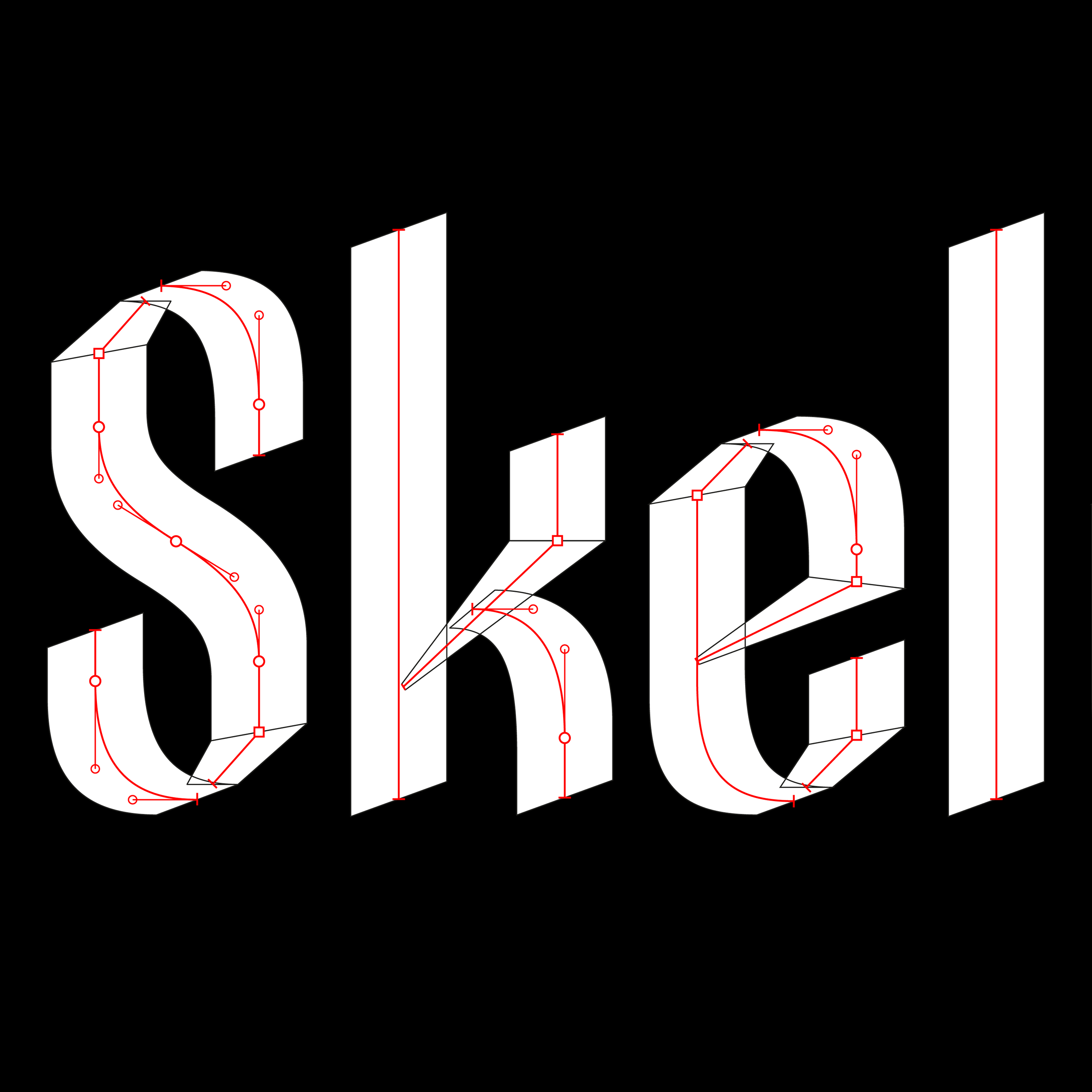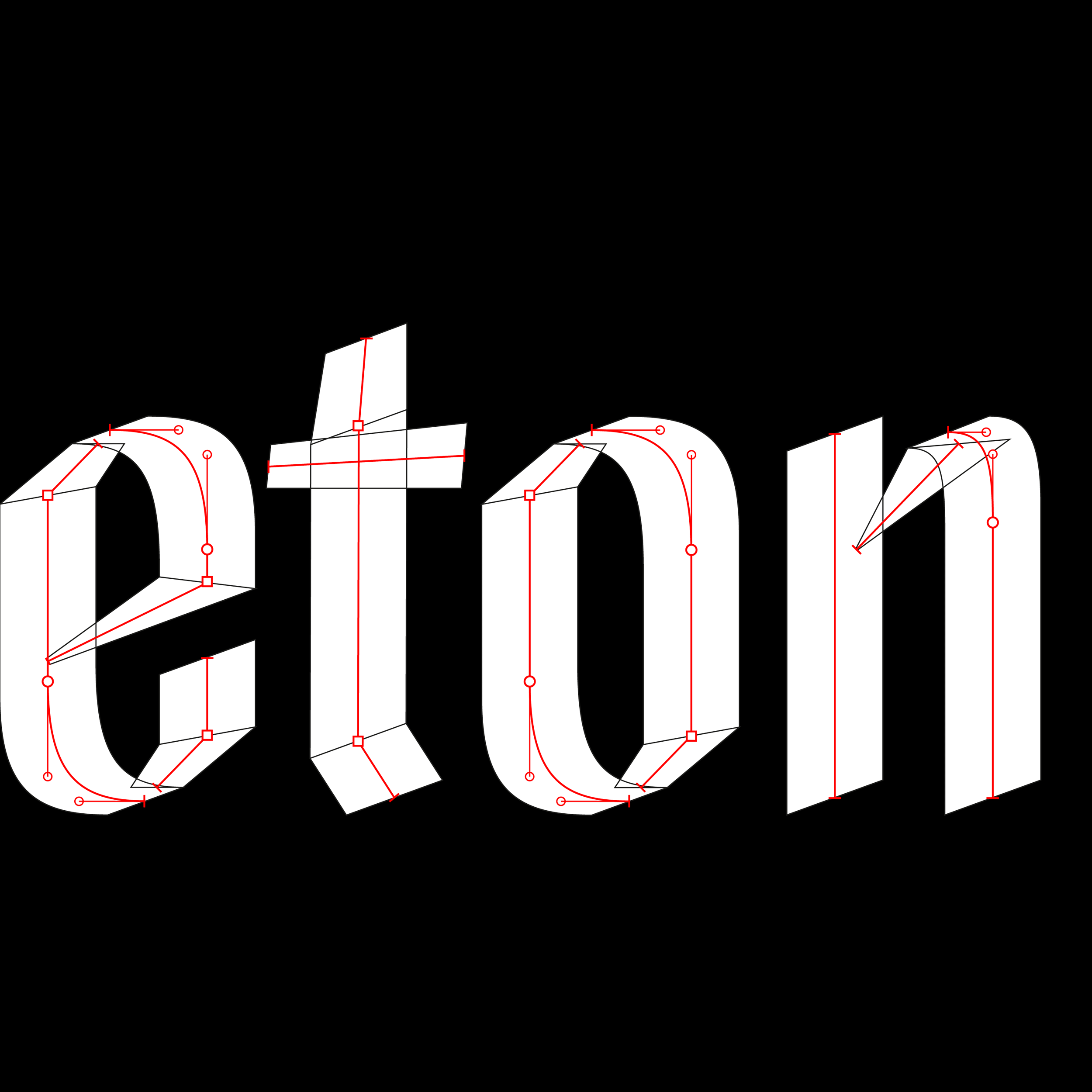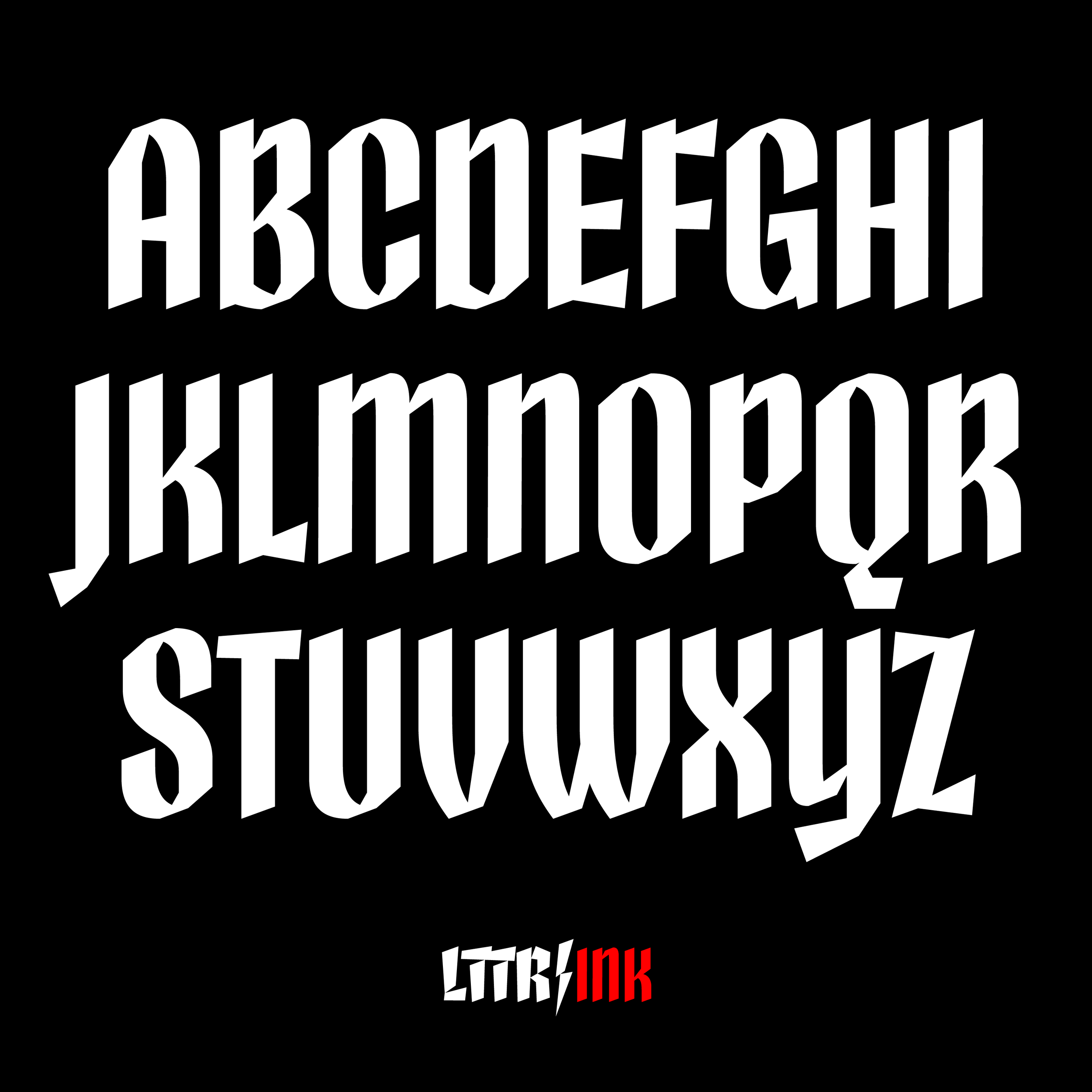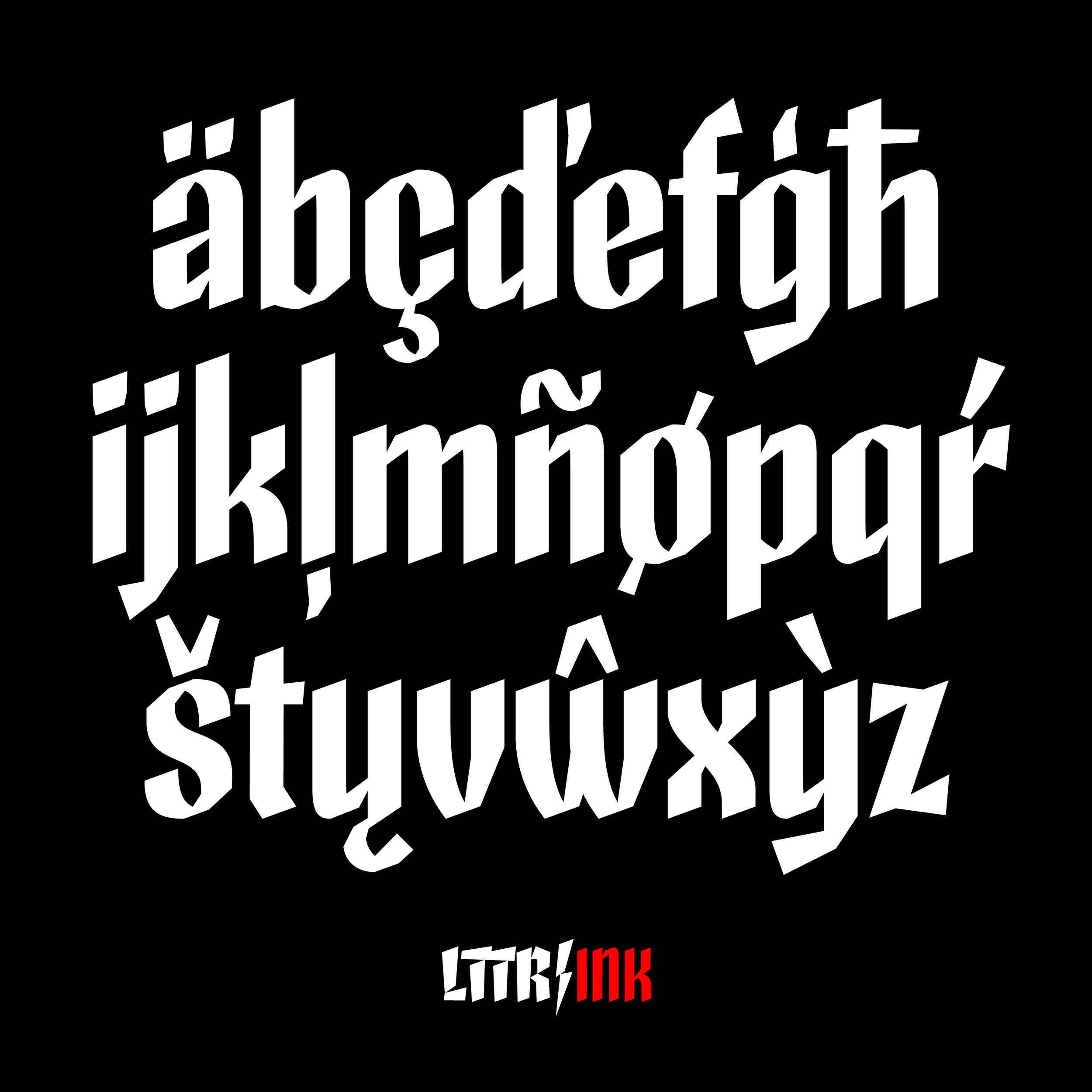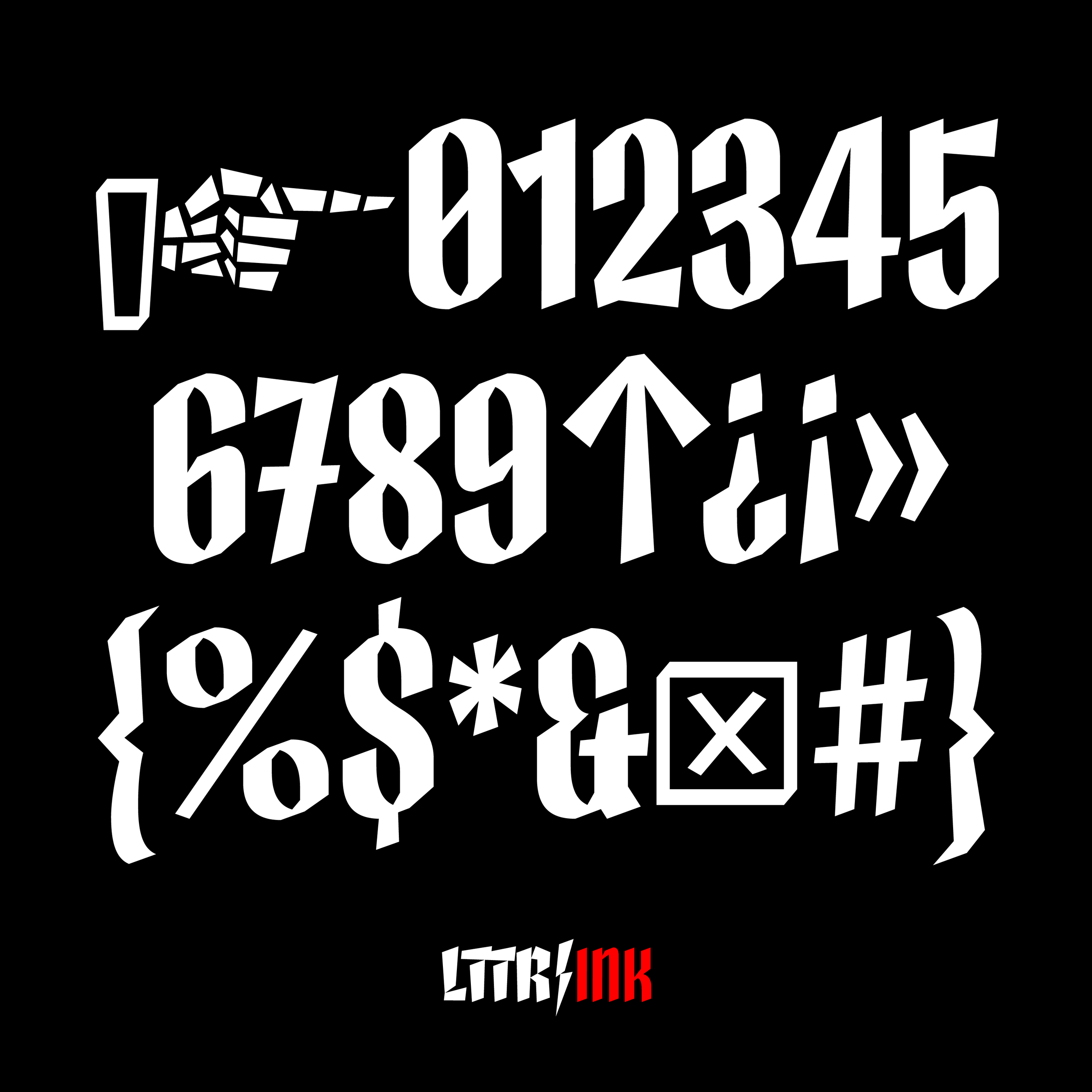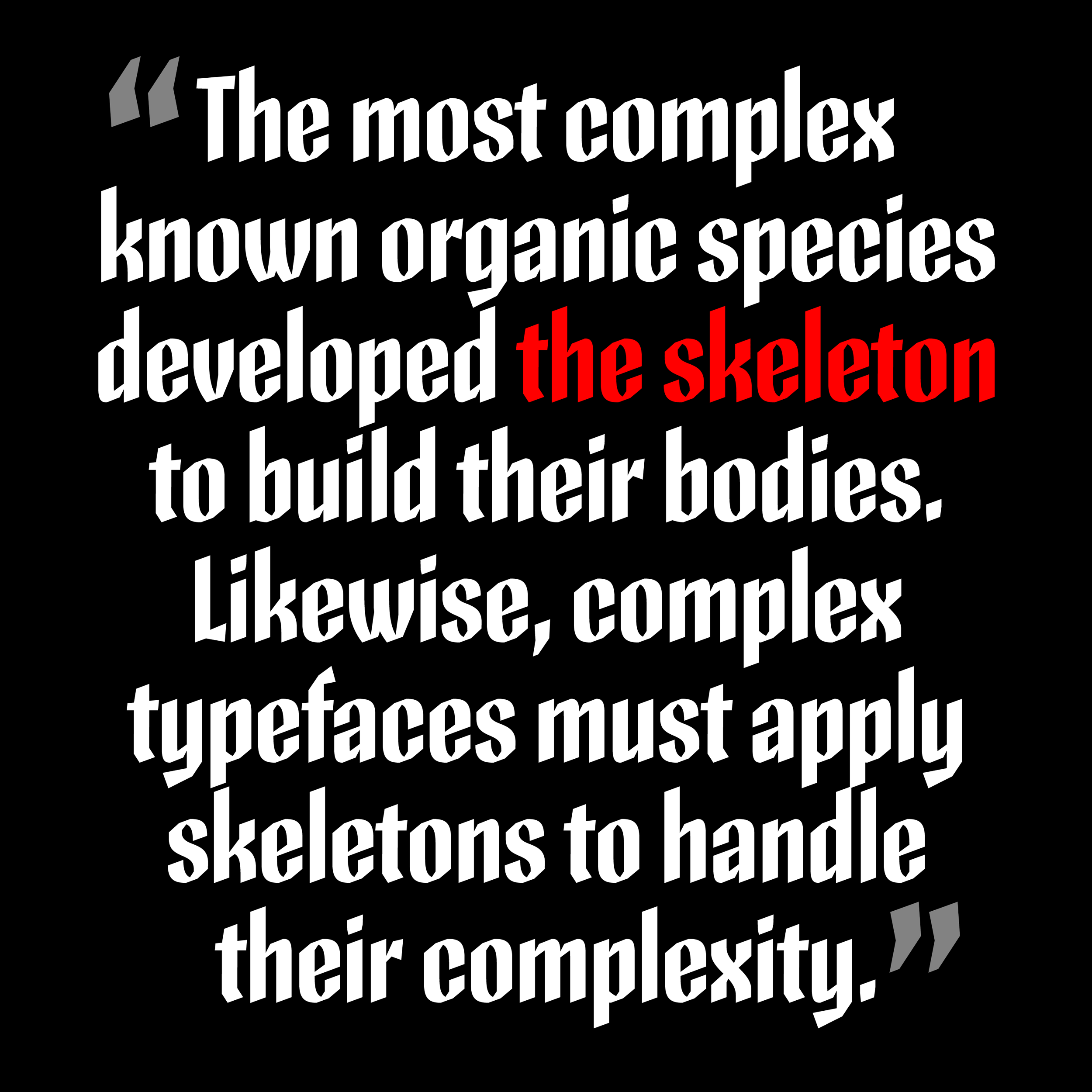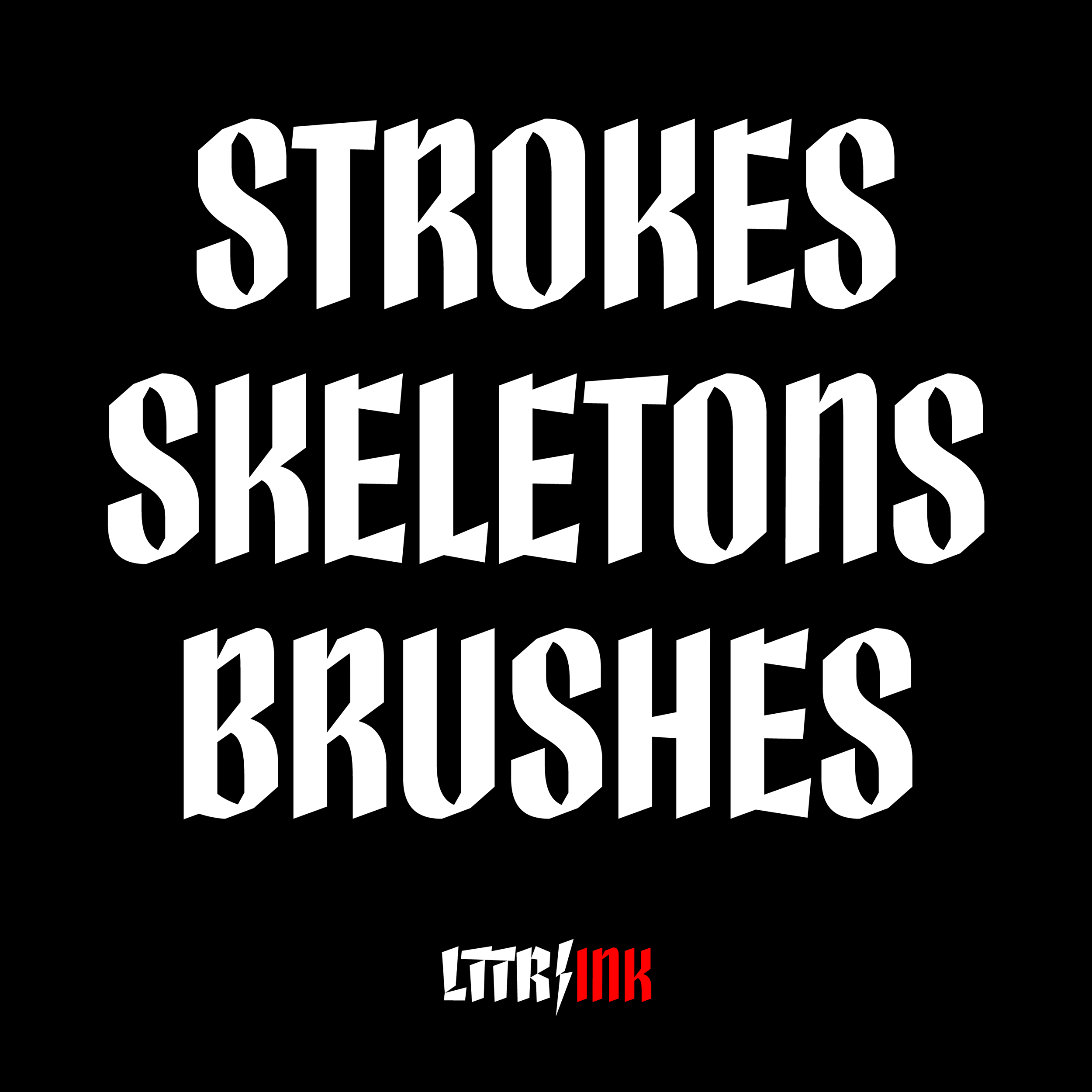
Skeleton Type One
The typeface was created as a part of the corporate identity of the project LTTR/INK. Its purpose is to demonstrate the idea of skeleton-based type design and the software LTTR/INK as the only tool that allows drawing letters with skeletons. The typeface style combines contemporary comics aesthetics and historical fraktur, which was popular during Guttenberg’s era and the early printing press. During that period, the type designers had been leaving the skeletons because of the technology. LTTR/INK as a new technology resurrects the skeletons for the type design field.